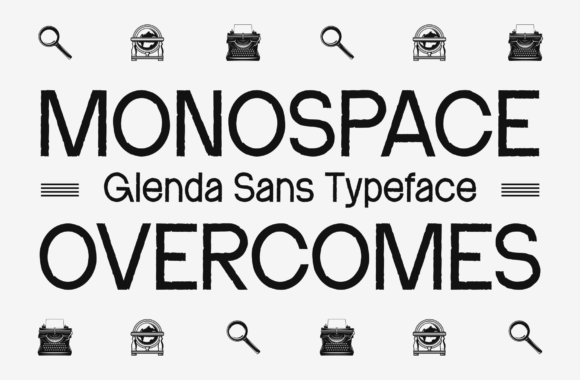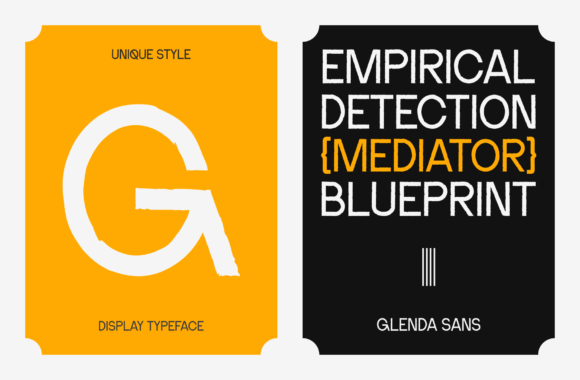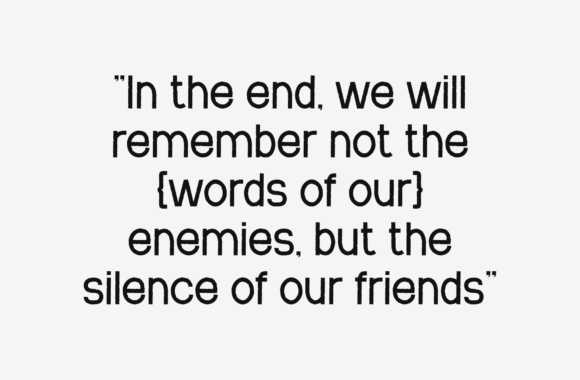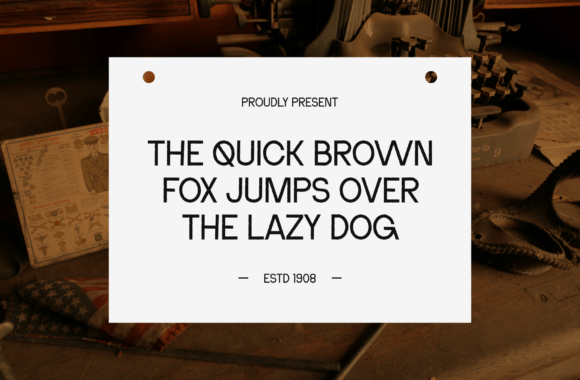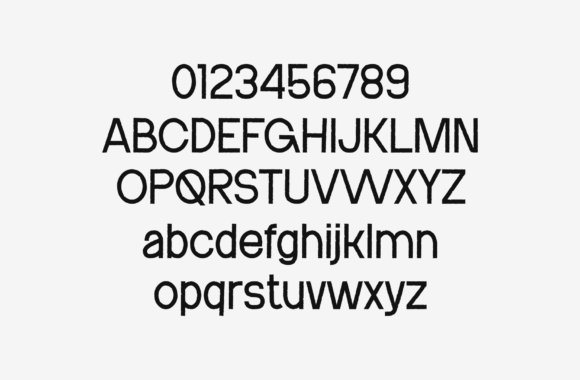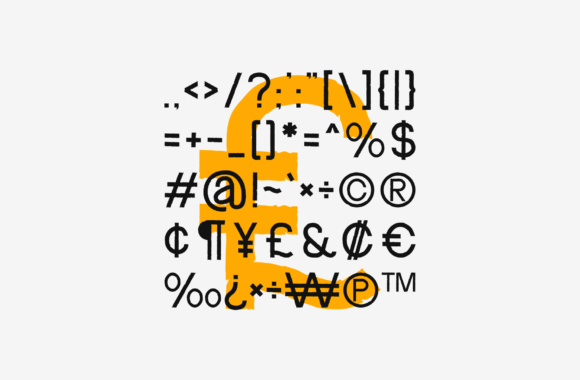
Introducing Glenda Sans: A Timeless Textured Font for Your Creative Projects
In the world of typography, few fonts manage to capture the essence of vintage charm and classic elegance as effectively as Glenda Sans. This textured stamp-style font is designed to transport you back in time, evoking memories of old printing techniques and hand-pressed letters. With its weathered appearance, uneven edges, and subtle imperfections, Glenda Sans is the perfect addition to any creative project seeking to add a touch of nostalgia and character.
The Design of Glenda Sans
Glenda Sans boasts a unique design that sets it apart from modern fonts. Its weathered, hand-pressed look gives it an authentic, worn appearance that is reminiscent of old printing techniques. The font’s uneven edges and subtle imperfections add to its charm, making it look like it was crafted with care and attention to detail. This level of detail makes Glenda Sans an excellent choice for designers and crafters looking for a font that exudes character and personality.
The classic charm of Glenda Sans makes it suitable for a wide range of creative uses. Whether you’re working on branding, packaging, posters, or invitations, this font is sure to add a touch of antiquity and elegance to your project. Its versatility and unique design make it an excellent choice for:
- Branding: Use Glenda Sans to create a memorable and distinctive brand identity that sets you apart from the competition.
- Packaging: Add a touch of vintage charm to your product packaging and make it stand out on store shelves.
- Posters: Create eye-catching posters that evoke a sense of nostalgia and timeless elegance.
- Invitations: Use Glenda Sans to craft beautiful and unique invitations that set the tone for any occasion.
Why Choose Glenda Sans?
With so many fonts available, why choose Glenda Sans? Here are just a few reasons why designers and crafters love this textured stamp-style font:
- Unique Design: Glenda Sans boasts a unique design that is sure to make your project stand out.
- Vintage Charm: This font captures the essence of vintage charm and classic elegance, making it perfect for projects that seek to evoke a sense of nostalgia.
- Versatility: Glenda Sans is suitable for a wide range of creative uses, from branding and packaging to posters and invitations.
Tips for Using Glenda Sans
To get the most out of Glenda Sans, here are a few tips to keep in mind:
- Pair with Modern Fonts: Pair Glenda Sans with modern fonts to create a striking contrast that adds visual interest to your project.
- Experiment with Colors: Try experimenting with different colors to find the perfect combination that complements your project’s theme.
- Use for Headings: Use Glenda Sans for headings and titles to add a touch of elegance and sophistication.
In conclusion, Glenda Sans is a timeless textured font that is sure to add a touch of vintage charm and classic elegance to any creative project. Its unique design, versatility, and ease of use make it an excellent choice for designers and crafters looking for a font that exudes character and personality. Whether you’re working on branding, packaging, posters, or invitations, Glenda Sans is the perfect addition to your project.